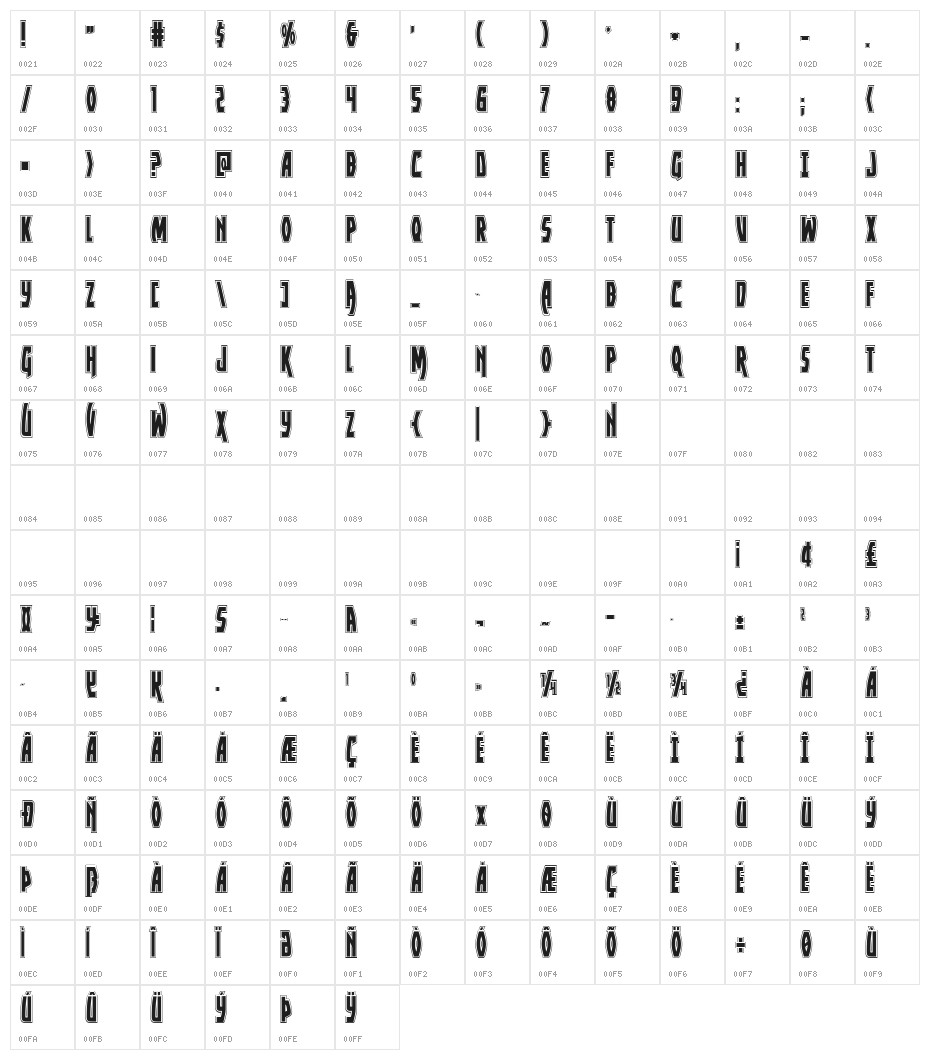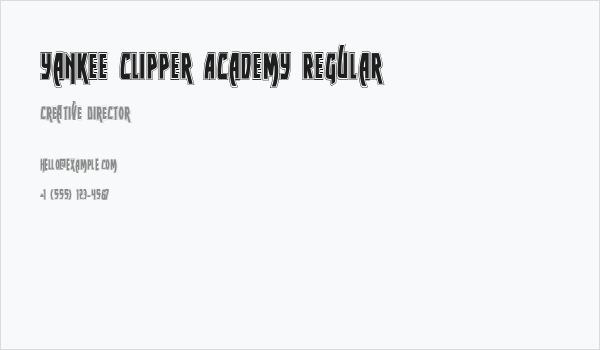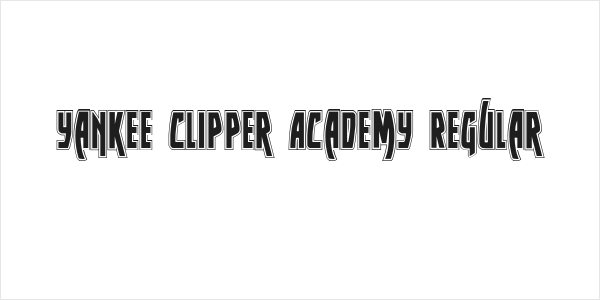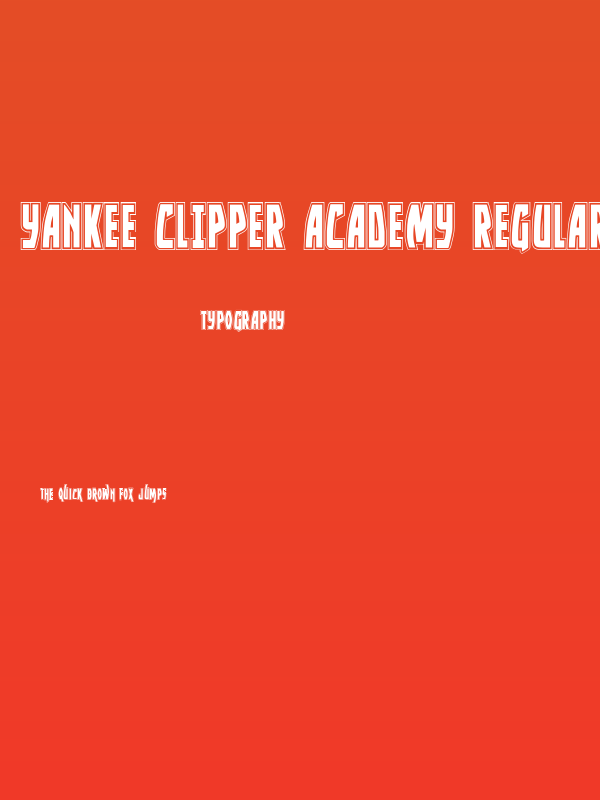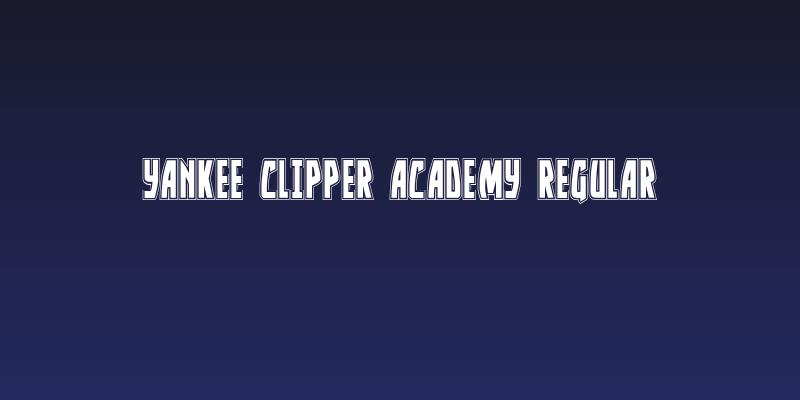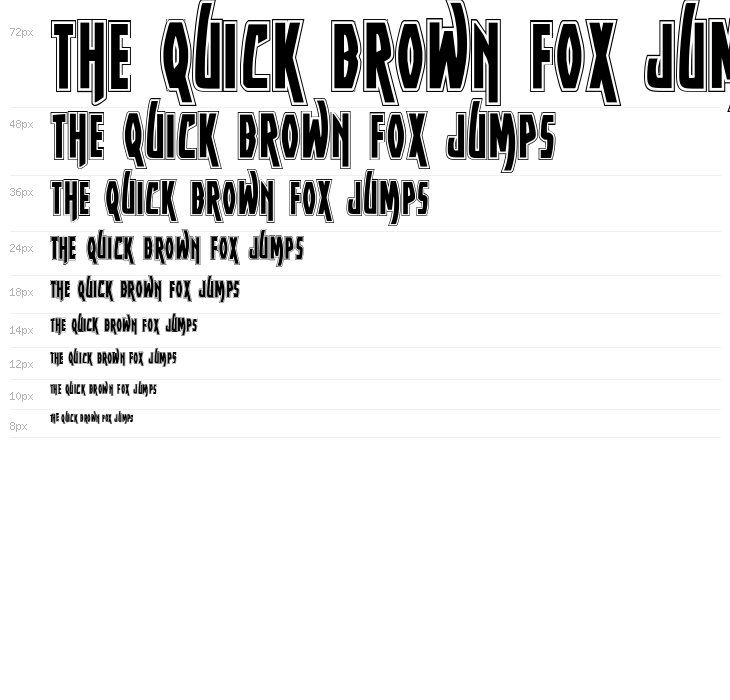
Yankee Clipper Academy Regular Font
Yankee Clipper Academy Regular Description
This font features a bold and dynamic style with a strong presence, characterized by thick, blocky letters that are outlined for added emphasis. The uppercase and lowercase letters maintain a consistent width, creating a uniform appearance. The numbers and special characters follow the same bold design, ensuring cohesion across all elements. The font's design is reminiscent of athletic or collegiate themes, making it suitable for projects that require a strong and impactful visual statement.